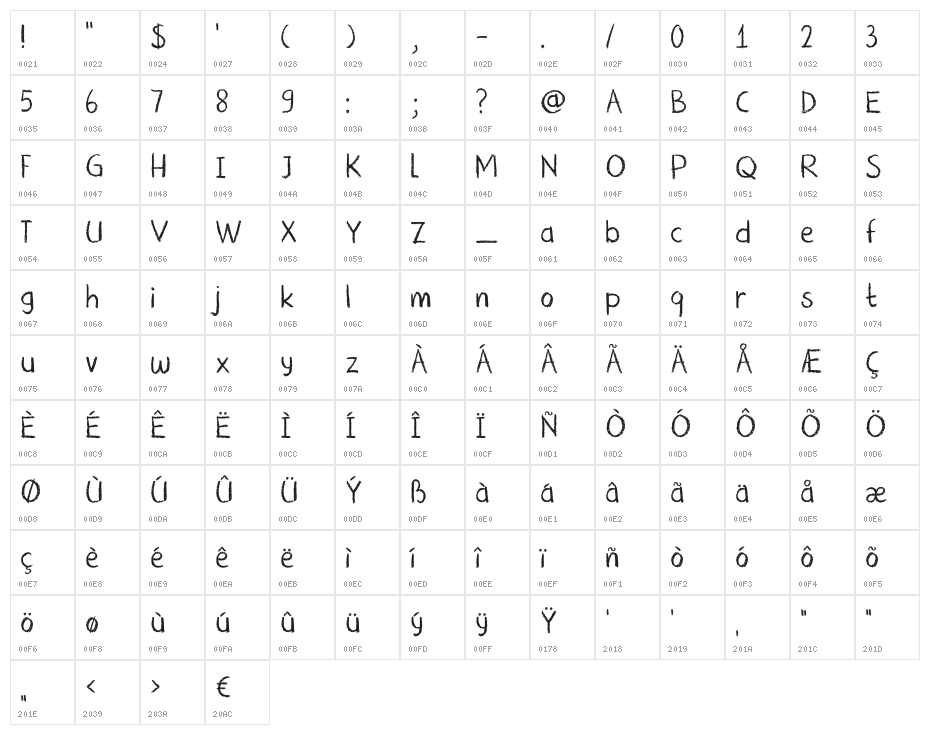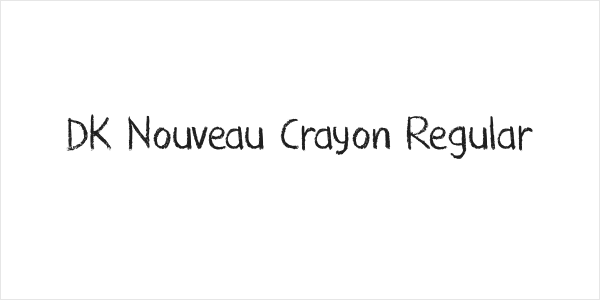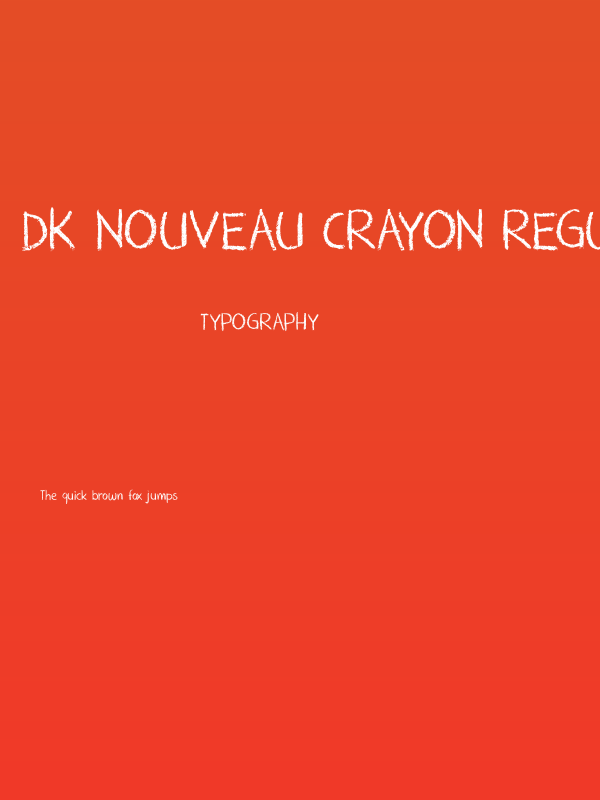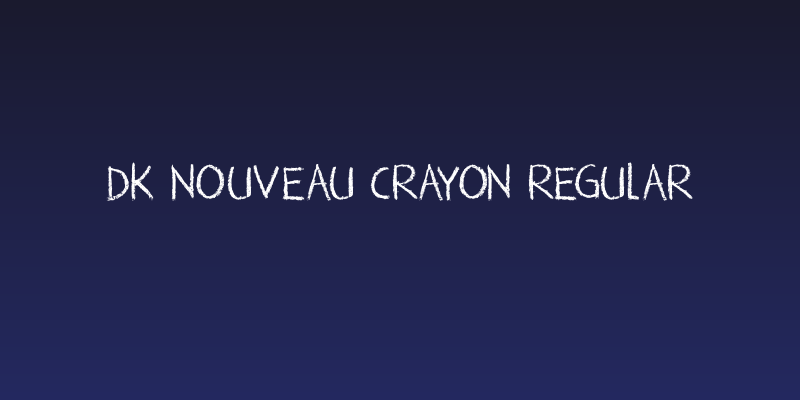
DK Nouveau Crayon Regular Font
DK Nouveau Crayon Regular Description
This playful and textured font mimics the appearance of crayon or chalk writing, giving it a hand-drawn and artistic feel. The letters are slightly irregular, adding to the casual and informal style. The uppercase and lowercase characters maintain a consistent style, with rounded edges and a slightly rough texture that enhances the handwritten effect. The numerals and special characters follow the same design principles, ensuring a cohesive look across all elements. This font is perfect for projects that require a fun and approachable aesthetic, such as children's books, educational materials, or creative branding.
| Proposed Projects | Ideal for children's books, educational materials, creative branding, and playful designs. |